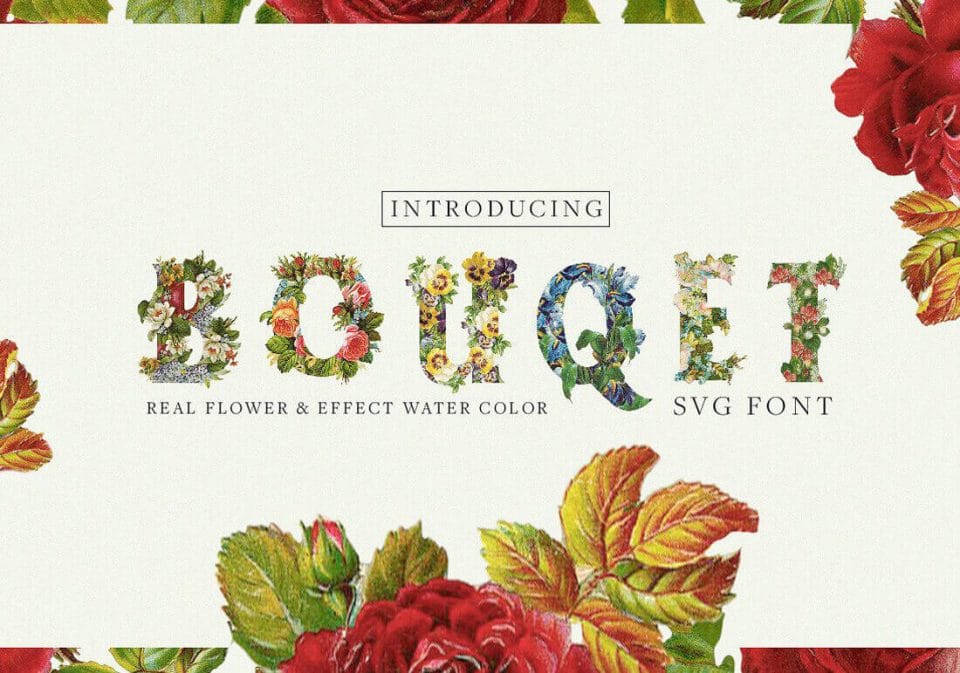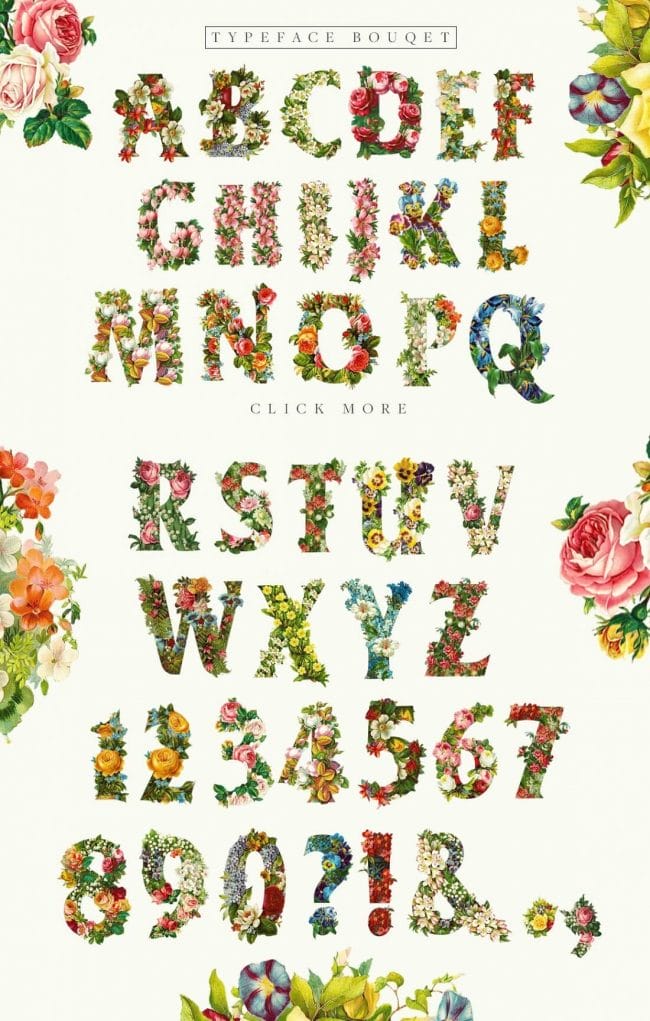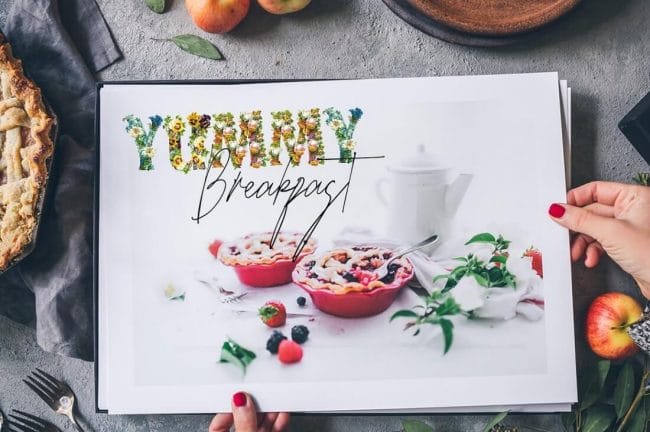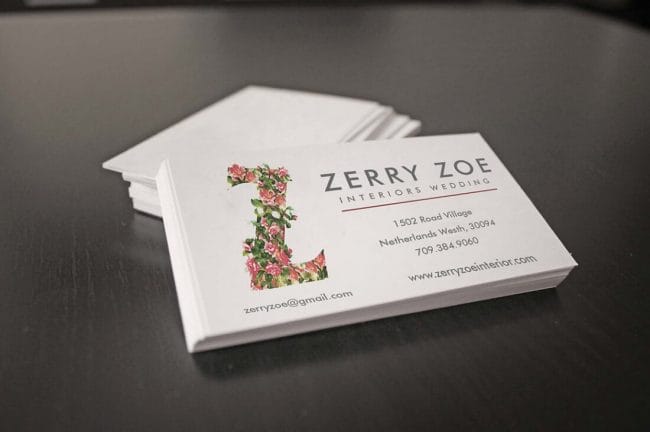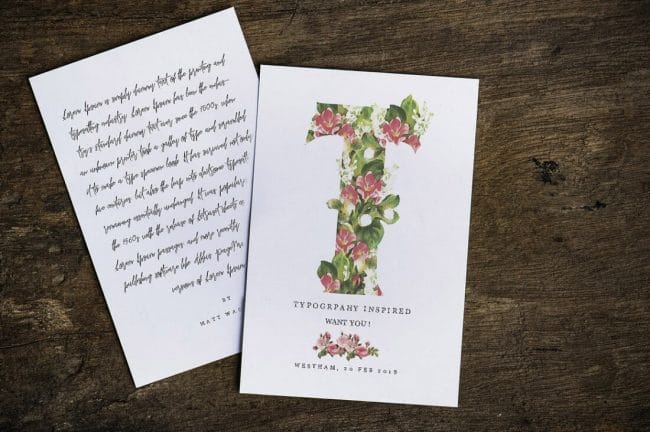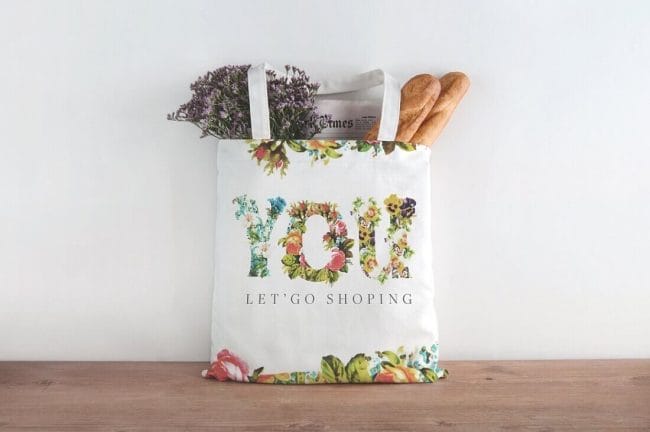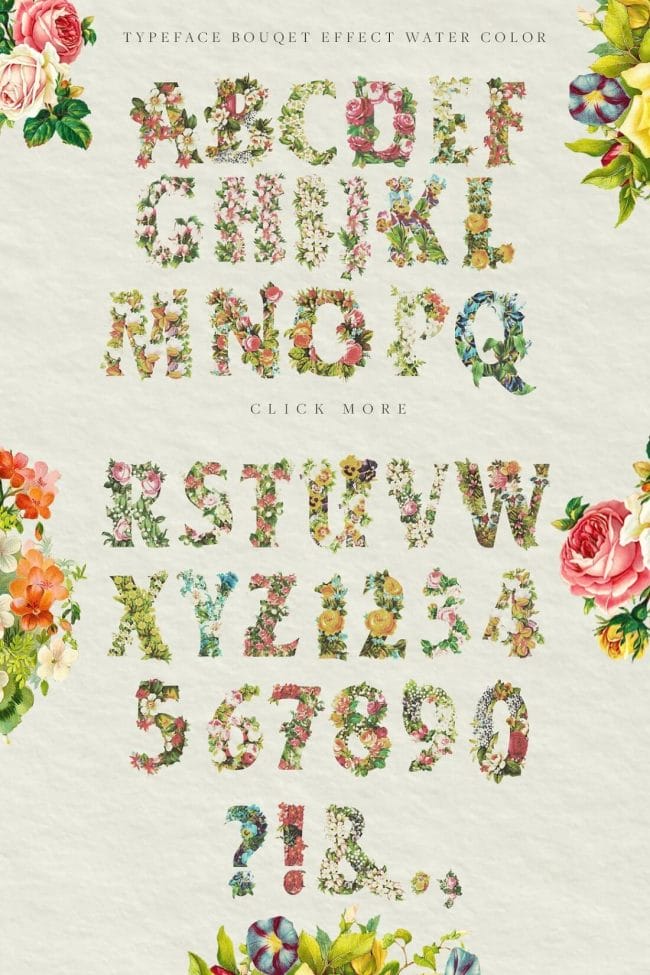
Add a beautiful touch of nature to your latest masterpiece with this collection of Bouquet Flower Fonts! You’ll get a gorgeous set of Realistic and Watercolor Flower typefaces that let your words come to life in stunning bright colors. It’s the total solution for everything from wedding invitations to shampoo bottles.
- Gorgeous flower-themed fonts breathe life into glyphs.
- Includes full alphabet, numerals and some punctuation.
- Two floral typefaces – Real Flower and Water Color Flower versions.
- Perfect choice for print products such as note cards, wall art, branding, weddings, labels, apparel, packaging, quotes, business cards and more.